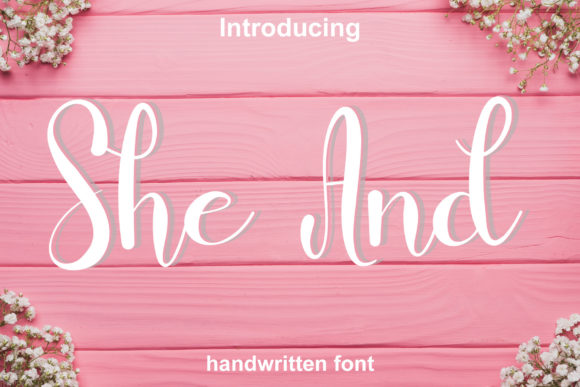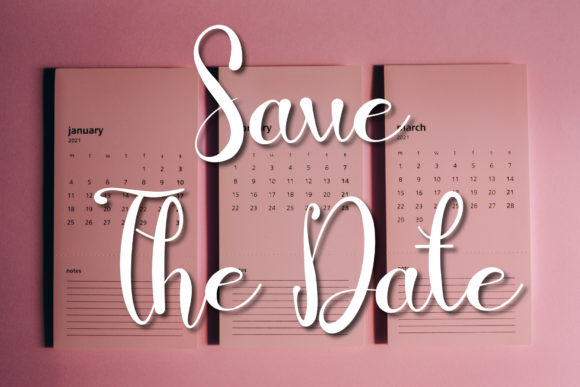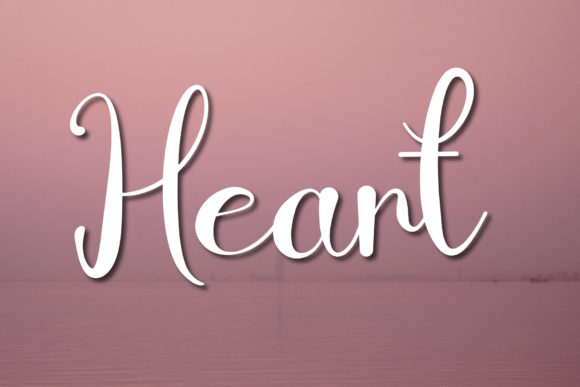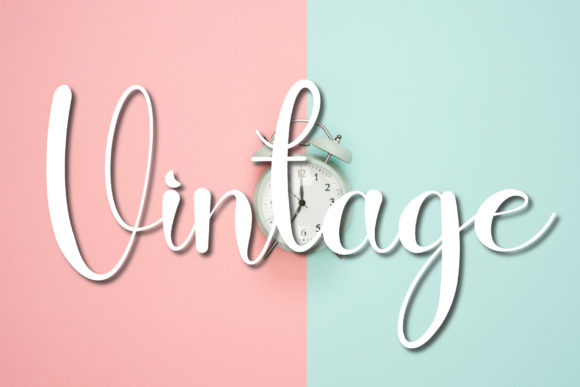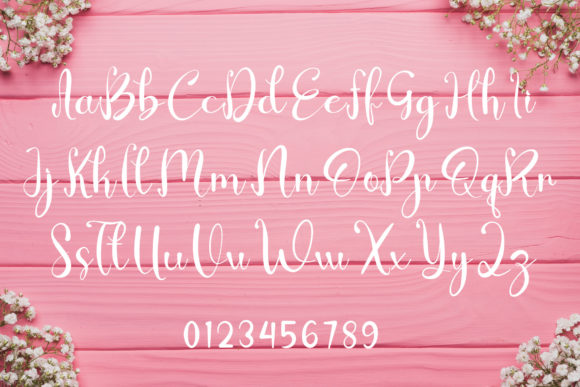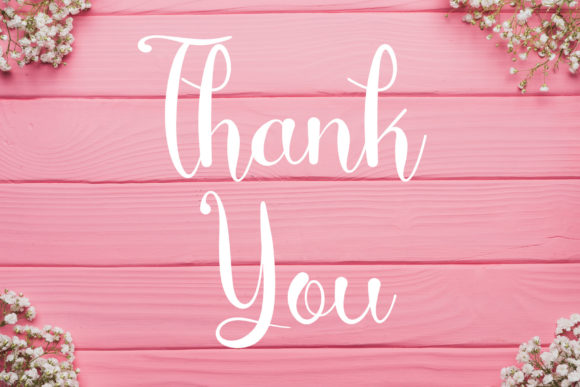
She and Font
About She and Font
“She And” is a font that exudes elegance and sophistication. This handwritten typeface, with its unique charm and striking impact, is a testament to the beauty of design simplicity. It’s not just a font, but a tool that adds a touch of luxury to any design project you undertake.
The lightness of “She And” is its defining characteristic, making it an ideal choice for a wide range of creative projects. Whether you’re designing an invitation, a logo, or a website, this font will add a touch of class and distinction to your work.
What sets “She And” apart is its unique feel. Unlike other fonts, it doesn’t just convey information; it evokes emotions and tells a story. Every curve and stroke in this font is designed to make an impact, ensuring that your design not only looks good but also resonates with your audience.
In the world of design, where trends come and go, “She And” stands the test of time. Its beauty lies in its versatility – it’s modern yet timeless, simple yet impactful. No matter what design project you’re working on, this font is sure to elevate it to new heights.
In conclusion, “She And” is more than just a font. It’s a design element that can transform your project from ordinary to extraordinary. With its unique feel and stunning impact, it’s sure to add a luxury spark to your design project. So why wait? Start creating with “She And” today and see the difference it can make in your designs.